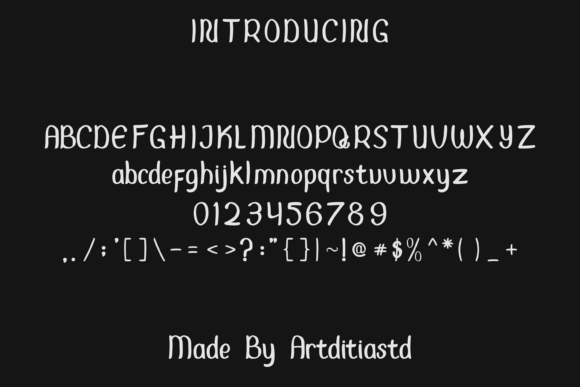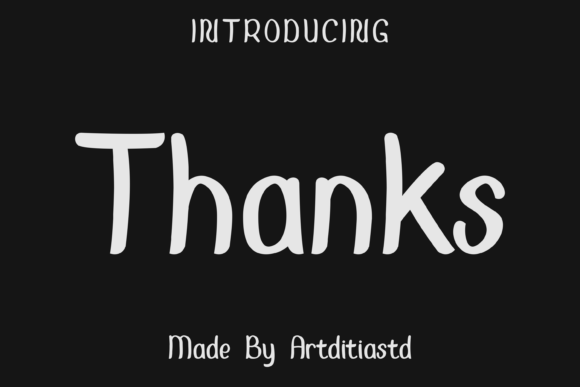
Galiho Font: The Ultimate Design Companion for Creative Projects
In the world of design, typography plays a crucial role in conveying messages, expressing creativity, and building brand identities. With numerous fonts available, finding the perfect one for your project can be overwhelming. However, if you’re looking for a versatile and stylish font that can elevate your designs, look no further than the Galiho font. In this article, we’ll explore the features, benefits, and uses of the Galiho font, and why it’s perfect for various creative projects.
What is Galiho Font?
The Galiho font is a modern, sans-serif typeface designed to provide a clean and elegant look to various design projects. Its simplicity and sophistication make it an excellent choice for designers, crafters, and businesses seeking a font that can adapt to different contexts. The Galiho font is perfect for many creative projects like designing logos, branding, websites, packaging, and social media posts.
Key Features of Galiho Font
The Galiho font boasts several key features that make it an attractive option for designers:
- Versatility: The Galiho font is highly versatile, making it suitable for a wide range of design projects, from logos and branding to websites and packaging.
- Legibility: The font’s clean and simple design ensures excellent legibility, even at small sizes.
- Modern look: The Galiho font has a modern, sleek appearance that can add a touch of sophistication to any design.
- Easy to read: The font’s clear and concise design makes it easy to read, reducing eye strain and improving user experience.
Benefits of Using Galiho Font
The Galiho font offers several benefits to designers and crafters:
- Time-saving: With the Galiho font, designers can save time searching for the perfect font, as it can be used for multiple projects.
- Consistency: Using the Galiho font ensures consistency across different design projects, reinforcing brand identity.
- Customization: The font’s simplicity makes it easy to customize, allowing designers to adapt it to their specific needs.
Use Cases for Galiho Font
The Galiho font is perfect for various creative projects, including:
- Logo design: The font’s modern look and versatility make it an excellent choice for logo design.
- Branding: The Galiho font can help establish a strong brand identity, conveying professionalism and sophistication.
- Web design: The font’s legibility and clean design make it suitable for web design, ensuring a great user experience.
- Packaging design: The Galiho font can add a touch of elegance to packaging design, making products stand out.
- Social media posts: The font’s simplicity and readability make it perfect for social media posts, ensuring messages are conveyed clearly.
Tips for Using Galiho Font
To get the most out of the Galiho font, follow these tips:
- Experiment with sizes: The Galiho font looks great at various sizes, so experiment to find the perfect fit for your design.
- Pair with other fonts: The font’s simplicity makes it easy to pair with other fonts, creating a unique and visually appealing design.
- Use it consistently: Consistency is key to establishing a strong brand identity, so use the Galiho font across different design projects.
In conclusion, the Galiho font is a versatile and stylish typeface perfect for various creative projects. Its simplicity, legibility, and modern look make it an excellent choice for designers, crafters, and businesses seeking a font that can adapt to different contexts. With its numerous benefits, use cases, and tips for use, the Galiho font is sure to become a go-to font for many designers.